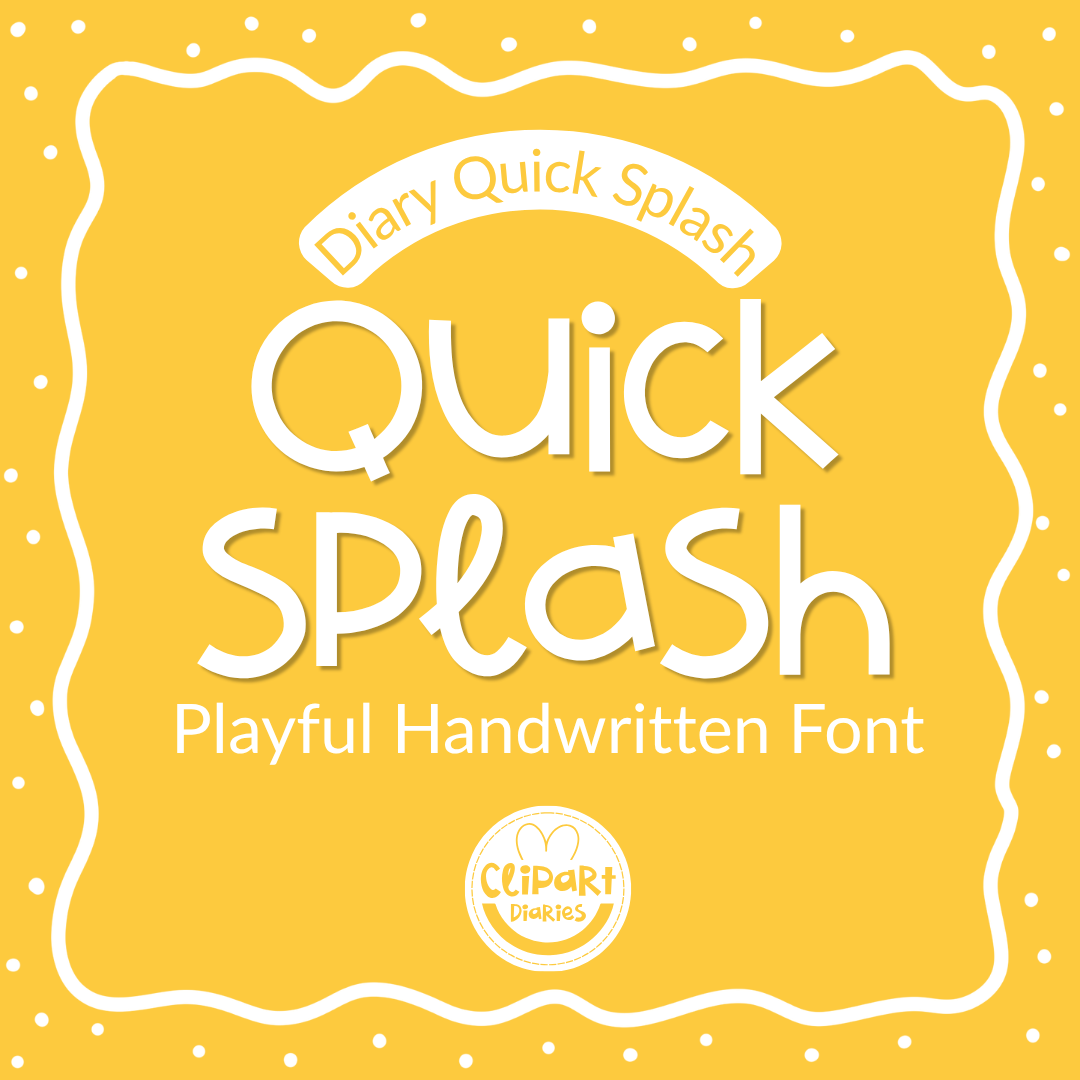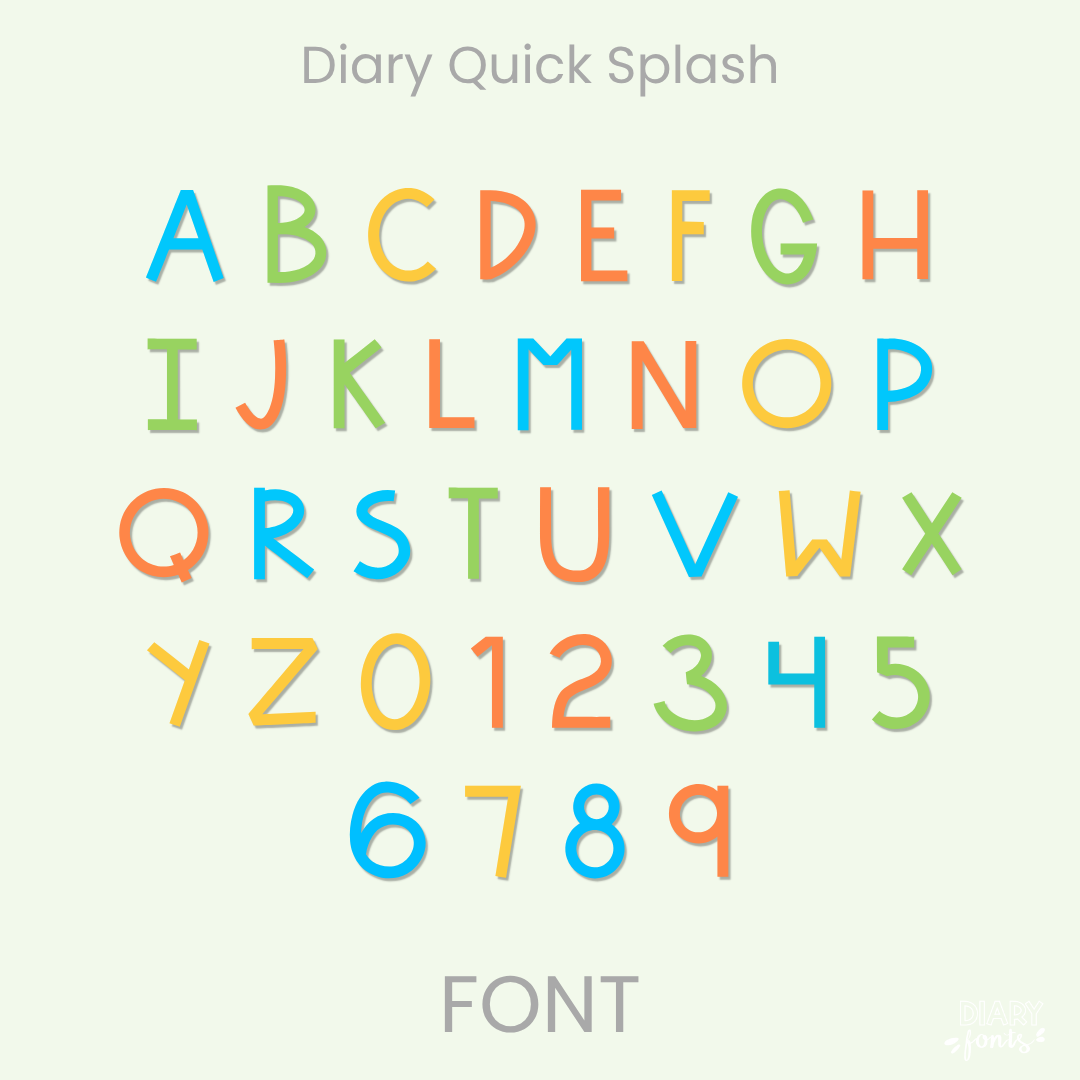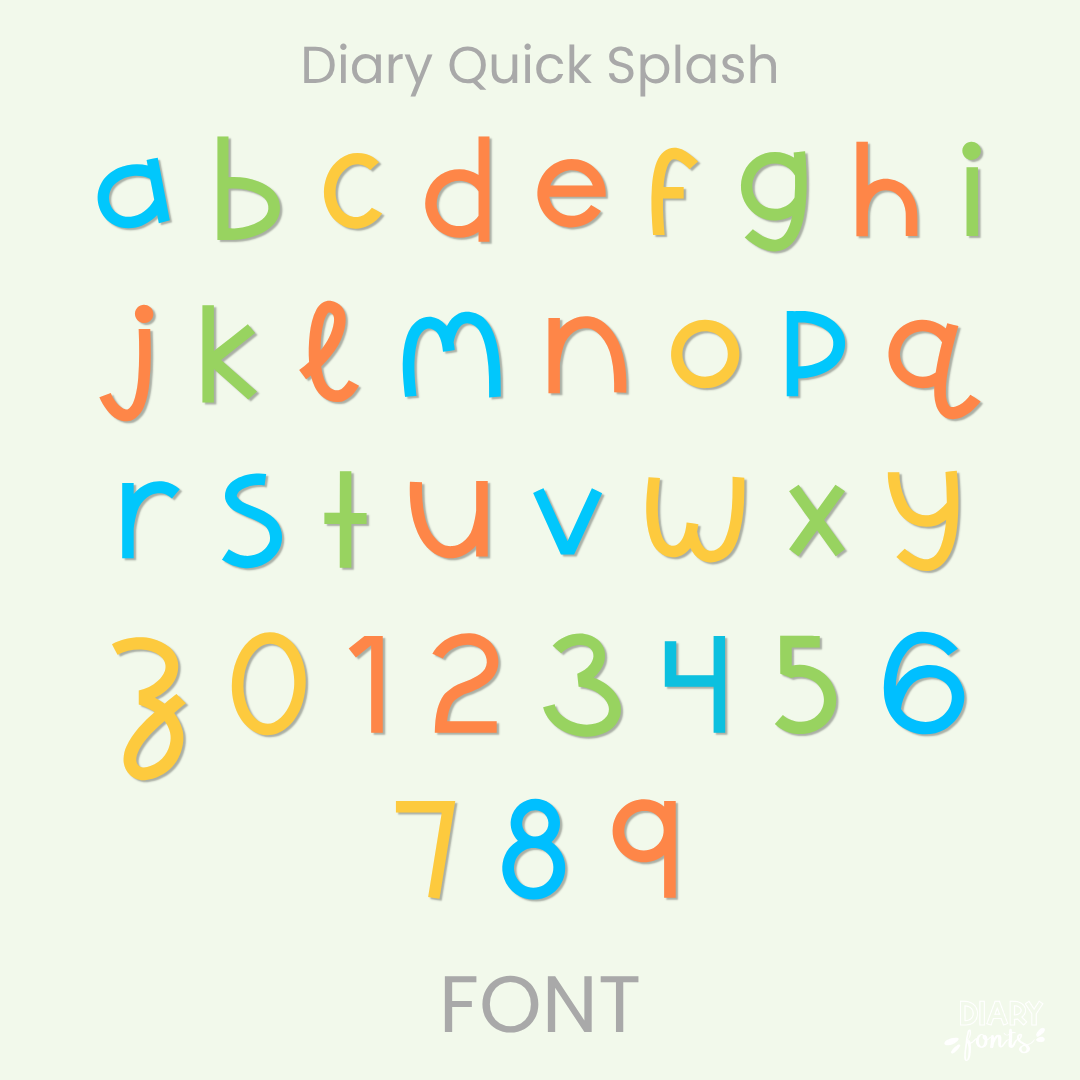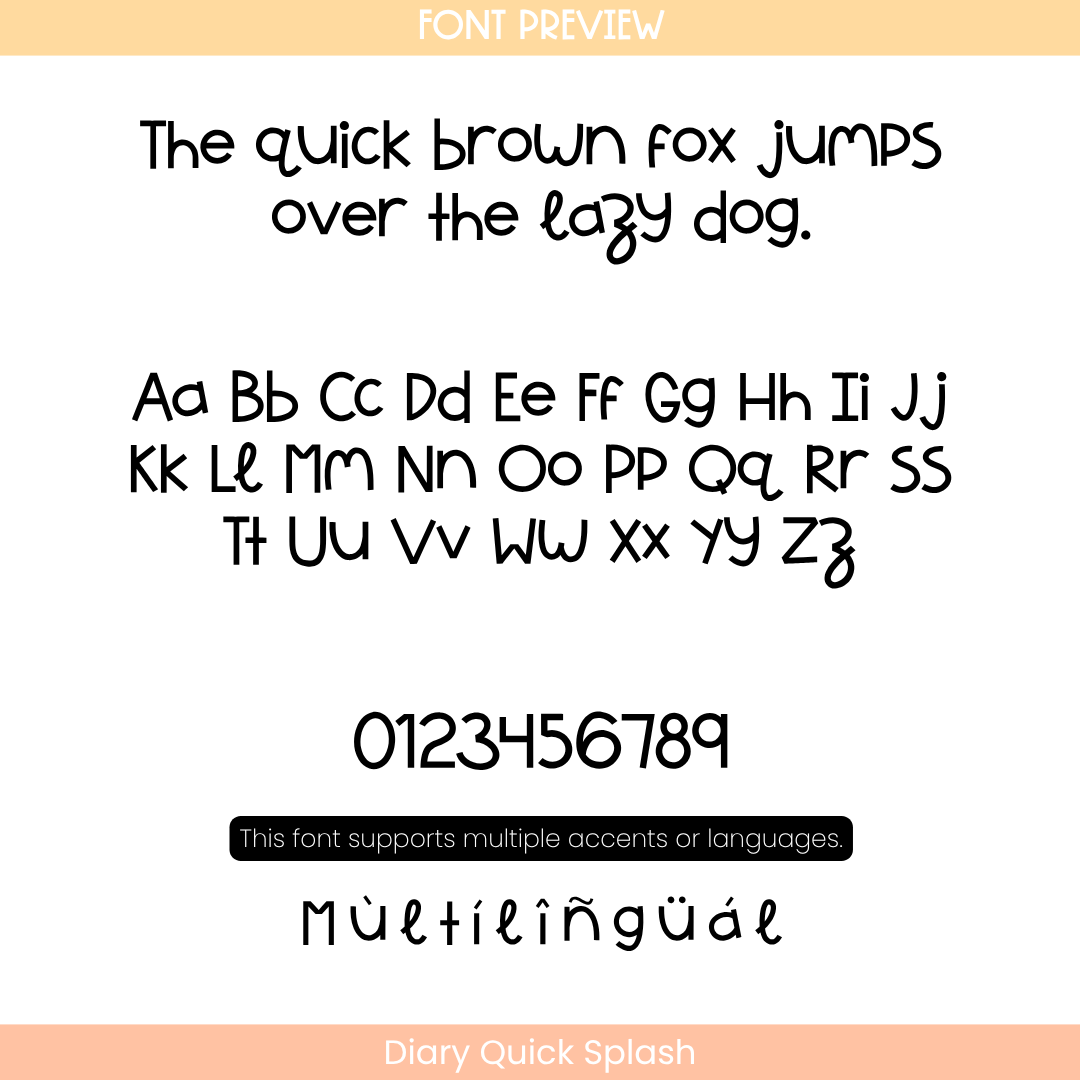
The Diary Quick Splash is a casual, blocky handwritten font with a relaxed print style designed for everyday classroom resources, worksheets, and display headers.
Diary Quick Splash features a distinct, unhurried hand-drawn style with wide, open character shapes. The letters are constructed with simple, blunt pen strokes that give the font a slightly chunky, hand-cut appearance while remaining completely upright and detached. With its wide letter forms, steady baseline, and distinct spacing between characters, it ensures that text does not run together and remains highly legible for young readers.
This font is a practical option for primary grade worksheets, instructional slide titles, morning announcements, and bold classroom labels. The character layout includes a complete set of uppercase and lowercase print letters, clean numbers, and accent marks for multilingual support. It installs quickly on desktop systems and functions smoothly within standard applications like MS Office, Canva, and Adobe software, as well as on iPad tools like GoodNotes and Procreate. It brings a clean, simple, and hand-crafted look to personal classroom activities or commercial teacher resource designs.